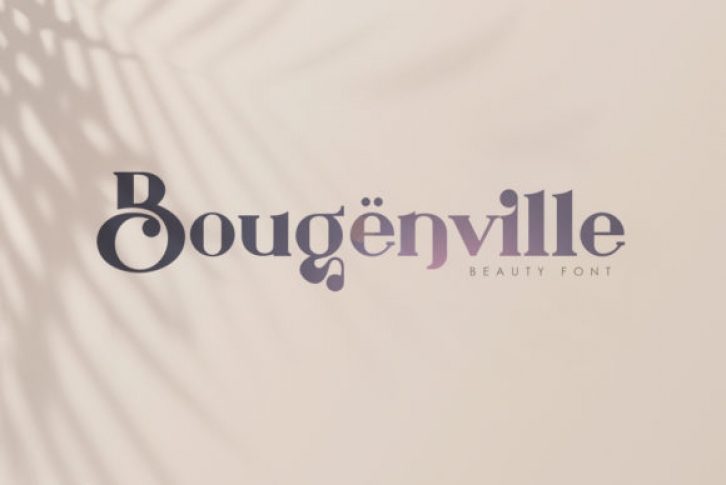
Bougenville is a unique serif font with a classic and modern look. It is perfect for retro and vintage designs and have awesome ligatures and alternates.